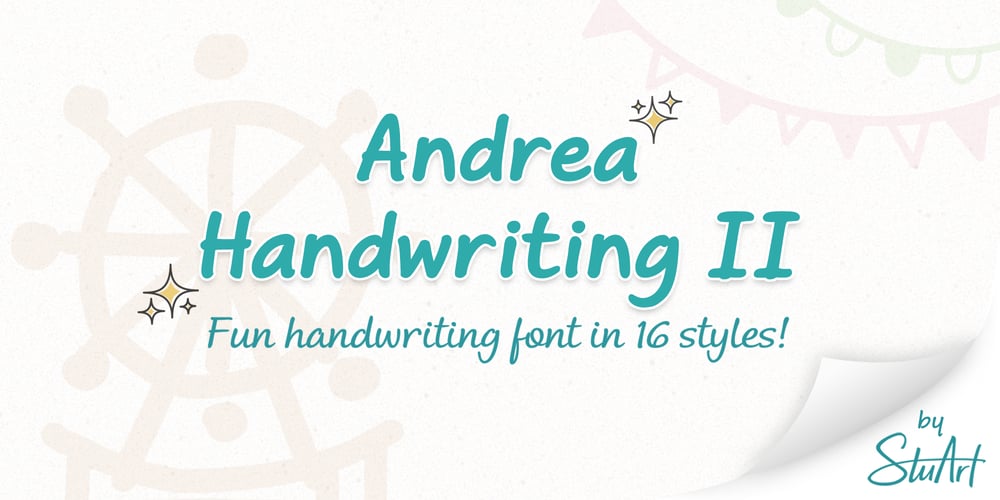
Andrea Handwriting II Font Family was designed by Andrea Stuart and published by StuArt. Andrea Handwriting II contains 16 styles and family package options. Since the release of the first Andrea Handwriting in 2008, requests have come in for additional weights of the four variants in the font family. Andrea Handwriting II includes 16 fonts featuring four weights of the four original styles in the first release which have been improved for a more polished look, but still with a personal and casual feel.Sixteen styles – what’s your type?